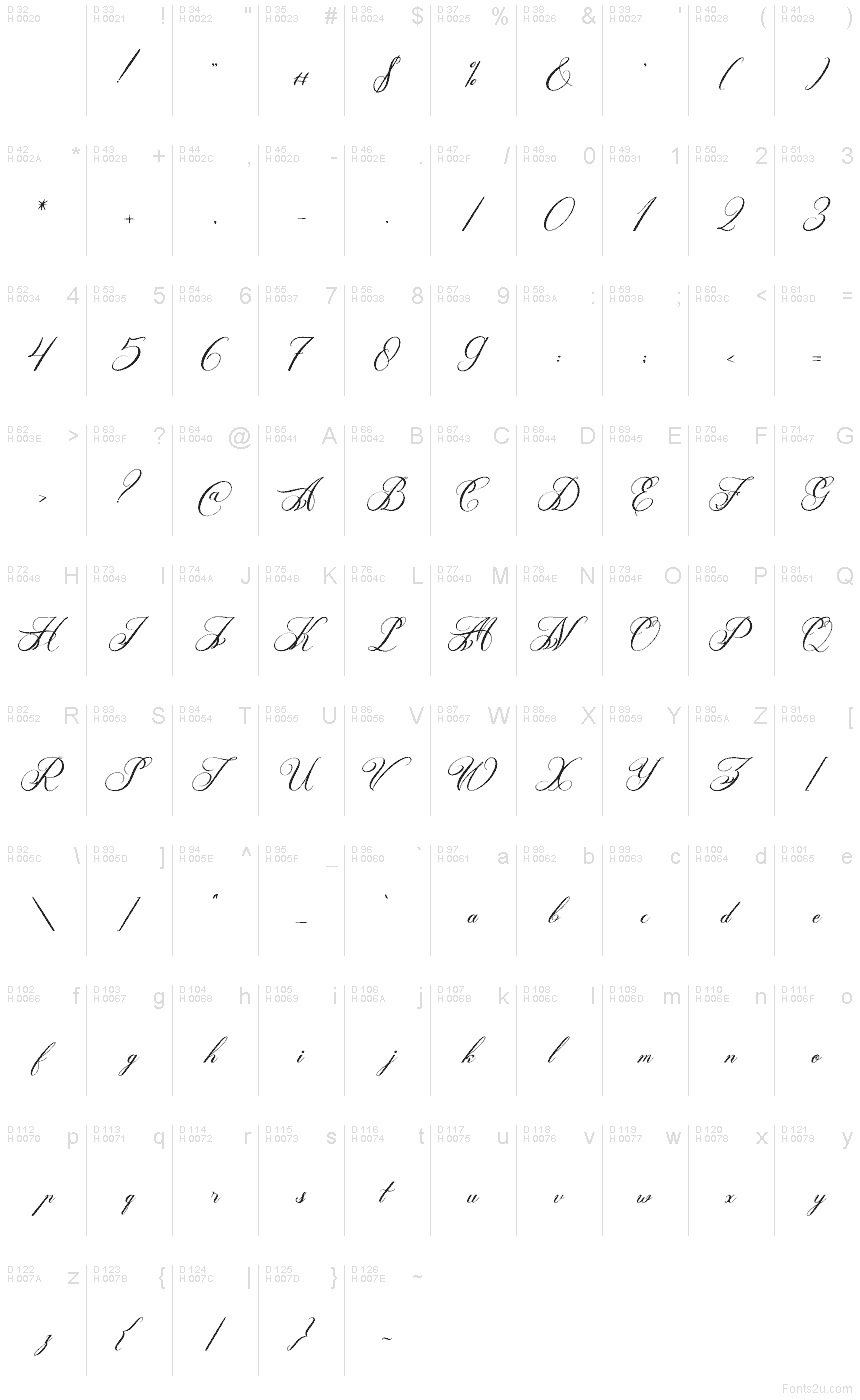
Aldyn Heart
Aldyn Heart font by Denustudios is a free calligraphy typeface that captures the sweep and romance of hand-lettered ink on fine stationery. Long, graceful strokes arc outward like ribbon, while the delicate contrast in its curves keeps each word feeling light, airy, and elegant rather than heavy or fussy. The letters connect with a natural, flowing rhythm, giving even short phrases a sense of movement and ceremony.
Using Aldyn Heart, invitations suddenly feel more personal, vows look keepsake-ready, and names gain that extra flourish of drama. This free font shines on wedding invitations, save-the-dates, bridal shower cards, luxury packaging, logo wordmarks, and signature-style social graphics. Pair it with a clean, understated sans serif for body text and let Aldyn Heart stay large and spacious so its looping strokes have room to breathe.